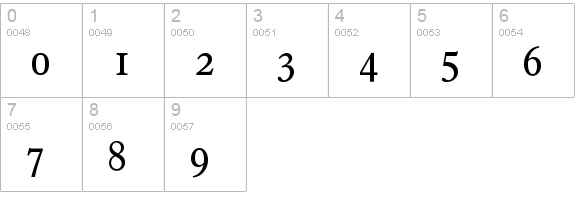
Francisco-Regular is the standard, neutral variant in the Francisco typeface family \xE2\x80\x94 well suited to general body text, paragraphs, and standard typographic work.
Francisco-Regular is a versatile and modern font that combines elegance with simplicity. Its clean lines and balanced proportions make it perfect for a wide range of design projects, from branding to editorial layouts. This font exudes a sense of sophistication and professionalism while maintaining a friendly and approachable feel. What sets Francisco-Regular apart is its versatility and readability across various mediums, making it an excellent choice for both print and digital applications. Whether you are designing a sleek business card or a stylish website, this font will elevate your project to the next level. The best part is that Francisco-Regular is available for free download at FontsMarket.com. So, you can easily access this high-quality font and use it in your projects without any hassle. Don't miss out on the opportunity to enhance your designs with the timeless appeal of Francisco-Regular.